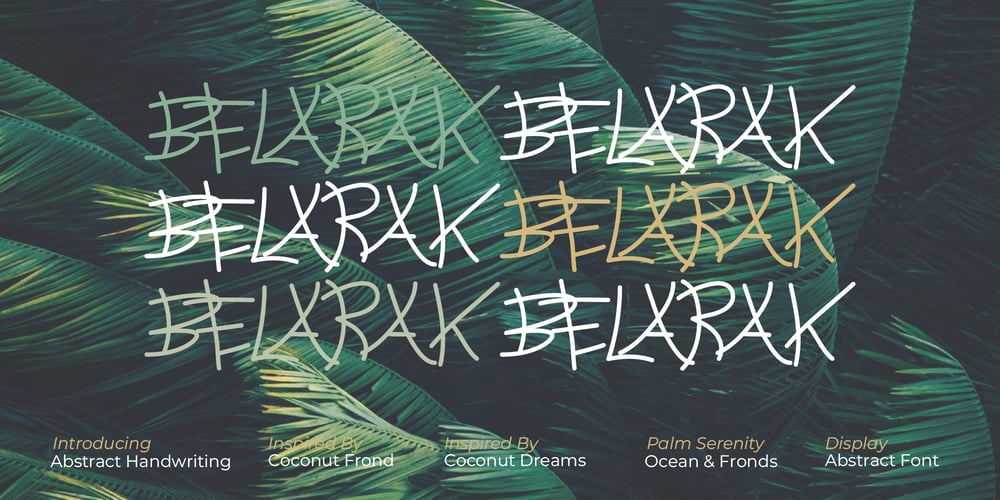
Belarak Font Family was designed by Eka Rifqi Setiawan and published by Erifqizefont. Belarak contains 1 styles and family package options. Inspired by the slender, elongated stalks of coconut fronds, this font embodies a unique blend of organic flow and structured elegance. Its distinctive forms capture the natural rhythm of these delicate yet resilient elements, creating a design that feels both exotic and modern. With a touch of tropical artistry, this font is perfect for projects that seek to evoke nature’s beauty with a bold and sophisticated twist.